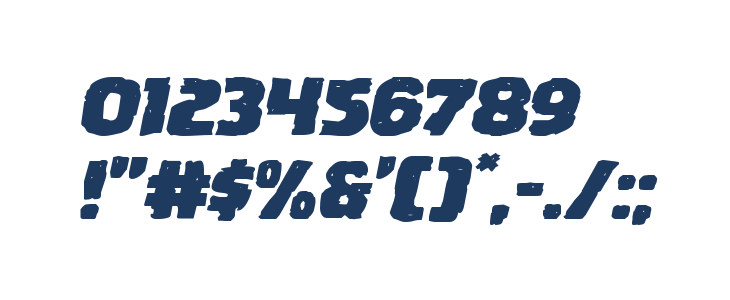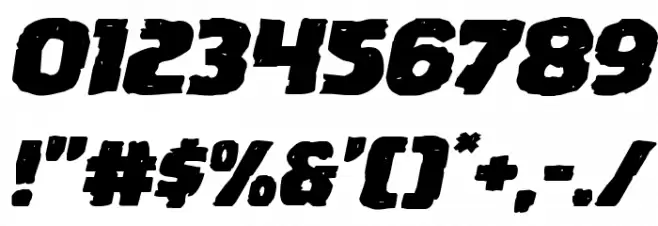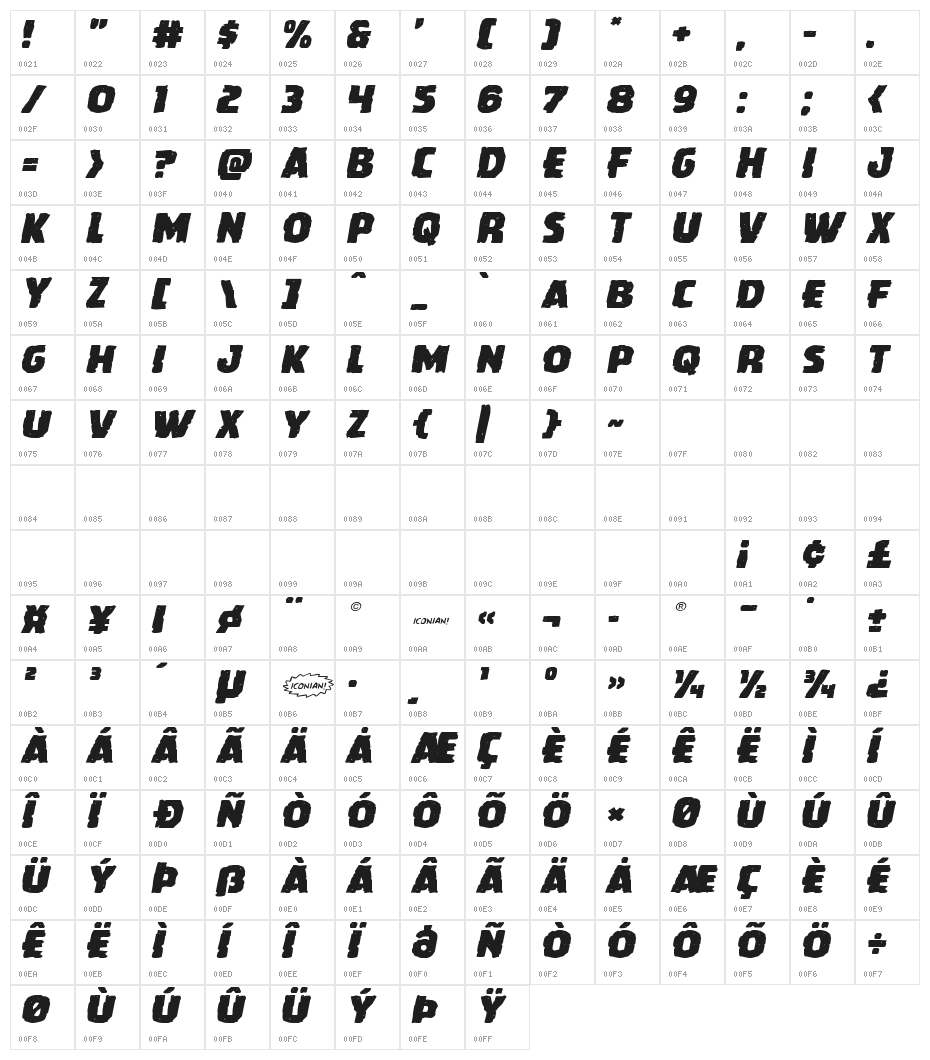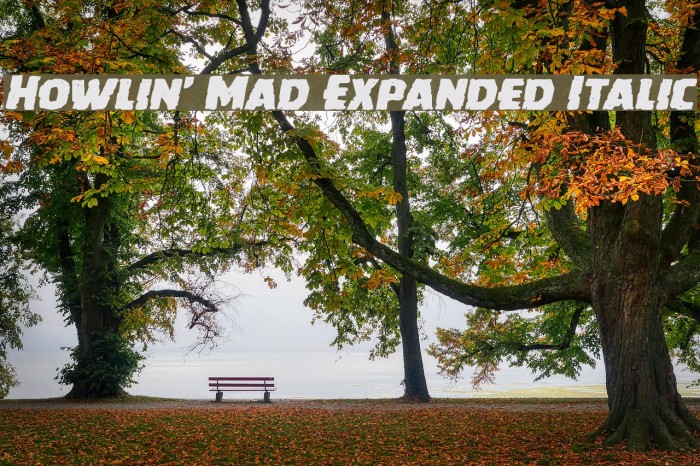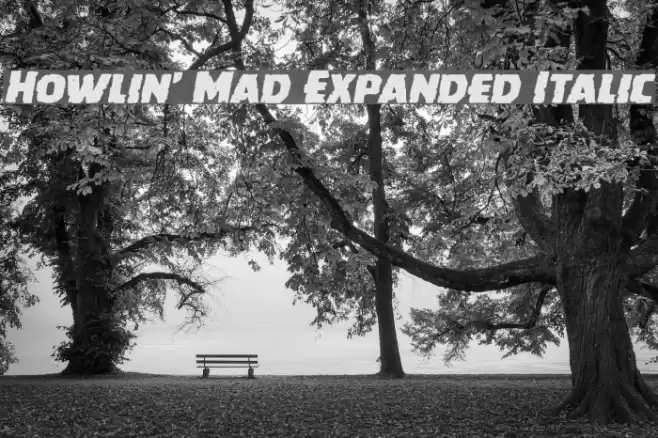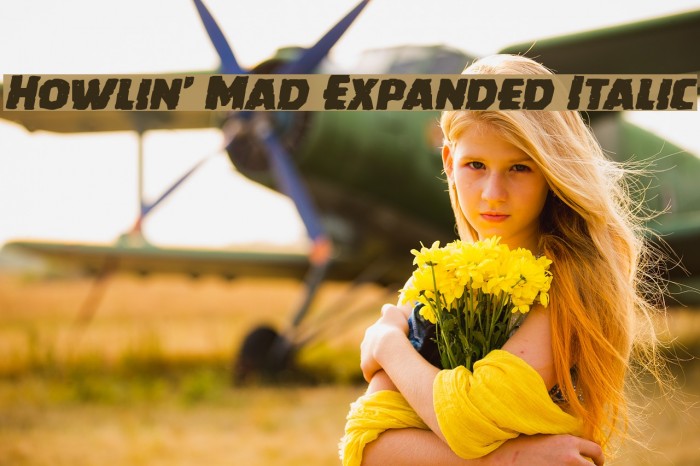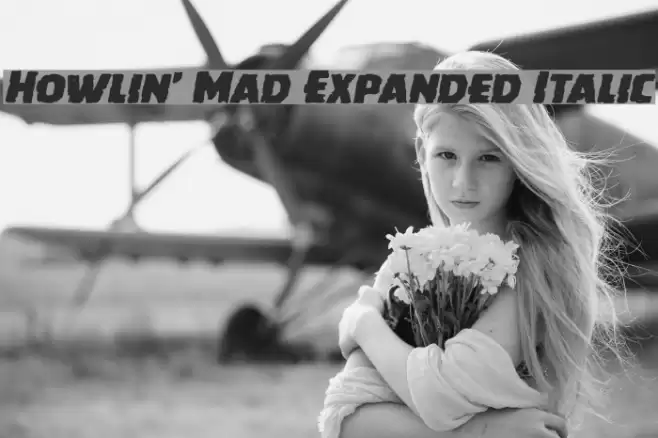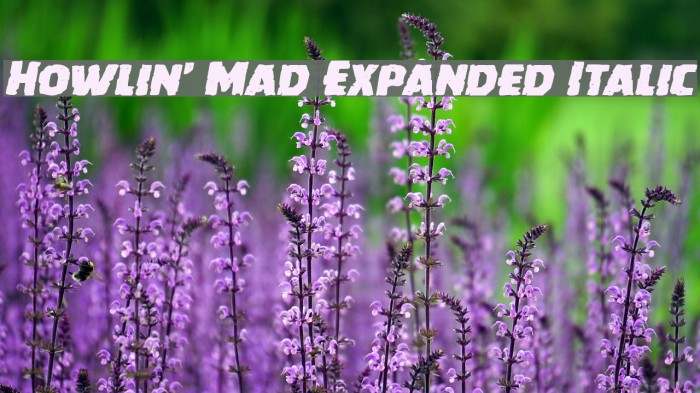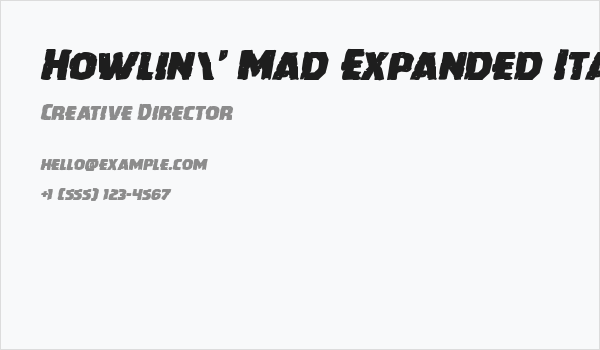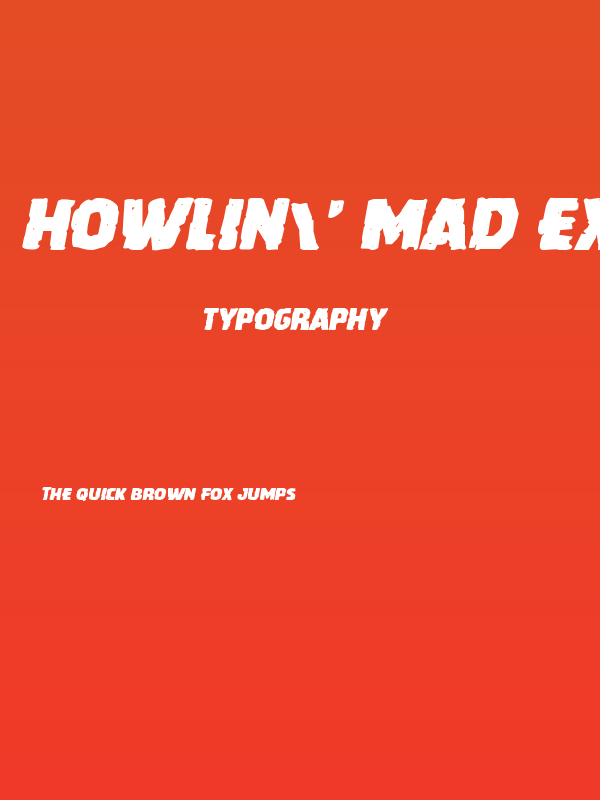
Howlin' Mad Expanded Italic Font
Howlin' Mad Expanded Italic Description
This font features a bold and dynamic style with an expanded and italicized form. The characters are heavily stylized with a rough, textured appearance that gives them a rugged and energetic feel. The uppercase and lowercase letters maintain a consistent width, contributing to a cohesive look. The numbers and special characters follow the same bold and expressive design, making them stand out. This font's unique style is perfect for projects that require a strong and impactful visual presence.
| Proposed Projects | Ideal for posters, headlines, branding, and any design needing a bold, energetic look. |